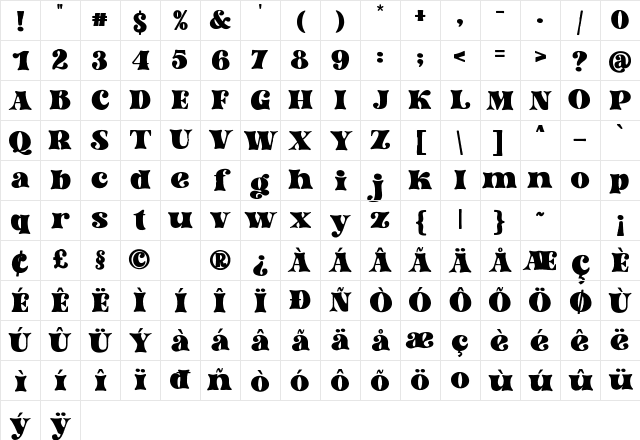
Long Beach Regular
Foundry: HansCo Studio
Designer: Burhan afif
Design Context for Long Beach
Long Beach is a composed and adaptable typeface that performs quietly and consistently across a wide range of design contexts.